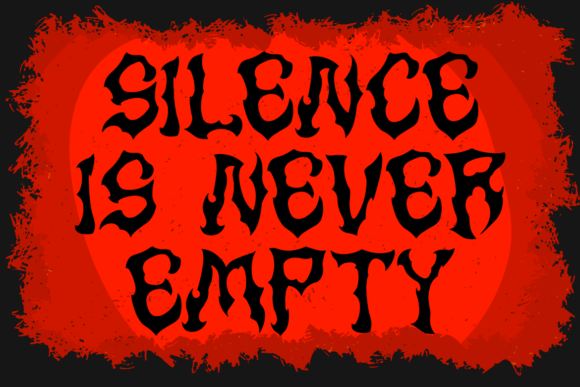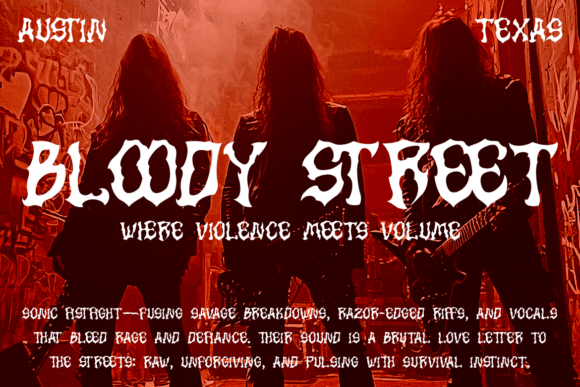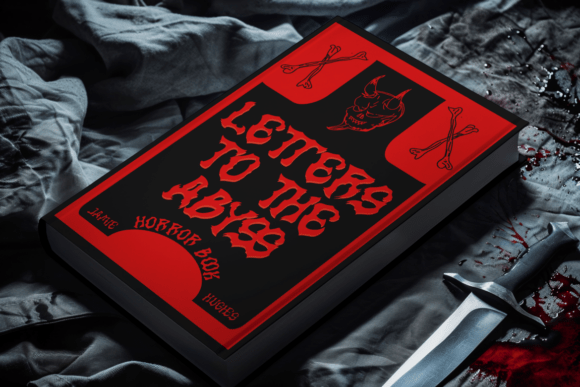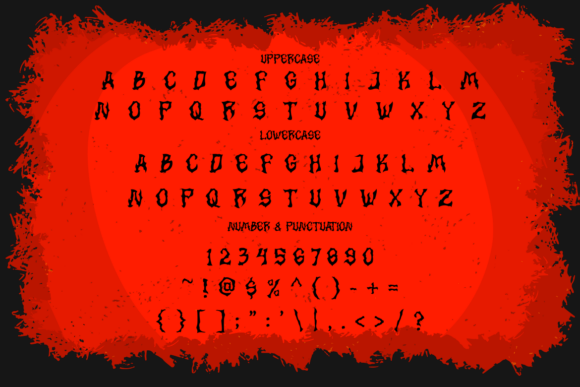
Unleash the Power of Rebellion with Black Chant Font
Are you looking for a font that embodies the raw energy of rebellion and darkness? Look no further than Black Chant, a commanding blackletter display font designed to channel the spirit of underground music, horror aesthetics, and gothic edge. This dramatic typeface is perfect for designers who dare to be bold and want to make a statement with their visual storytelling.
The Inspiration Behind Black Chant
Black Chant is inspired by the intense energy of ritualistic chants, occult vibes, and roaring metal riffs. Each letter is intricately crafted with jagged, flame-like serifs and aggressive curvature that evoke a sense of defiance and rebellion. The font’s design is rooted in the dark, gritty aesthetic of underground music and horror movies, making it perfect for projects that demand attitude and a striking visual presence.
Design Features of Black Chant
Black Chant’s design features are what set it apart from other fonts. The heavy-weight forms paired with ink-blot-style distortions give the font a raw, unapologetic look that’s sure to dominate any layout. The textured forms reflect an infernal aesthetic that pairs perfectly with red-black palettes and grunge backdrops. Whether you’re designing a band logo, album cover, horror movie title, or rock event poster, Black Chant is the ultimate weapon for designers who want to make a bold statement.
What You Get with Black Chant
When you choose Black Chant, you get a comprehensive typeface that includes:
- Full uppercase and lowercase set
- Numerals
- Punctuation
- Multilingual support
This means you have everything you need to create stunning visual content that demands attention.
Black Chant is perfect for designers and crafters who want to add a touch of rebellion and darkness to their projects. Whether you’re a graphic designer, artist, or DIY enthusiast, this font is sure to inspire you to create something bold and eye-catching. From horror-themed crafts to metal music-inspired art, Black Chant is the perfect choice for anyone who wants to unleash their creativity and make a statement.
Tips for Using Black Chant
Here are some tips for using Black Chant to get the most out of this powerful font:
- Use Black Chant as a headline font to grab attention and set the tone for your project.
- Pair Black Chant with a clean, sans-serif font for a striking contrast.
- Experiment with different colors, such as red and black, to amplify the font’s dark aesthetic.
- Use Black Chant to create bold, eye-catching graphics for social media and marketing campaigns.
Black Chant is a commanding blackletter display font that’s perfect for designers who want to unleash the raw force of rebellion and darkness in their projects. With its intricate design features, comprehensive character set, and bold aesthetic, Black Chant is the ultimate tool for creating striking visual content that demands attention. Whether you’re a designer, artist, or DIY enthusiast, Black Chant is sure to inspire you to create something bold and unforgettable.